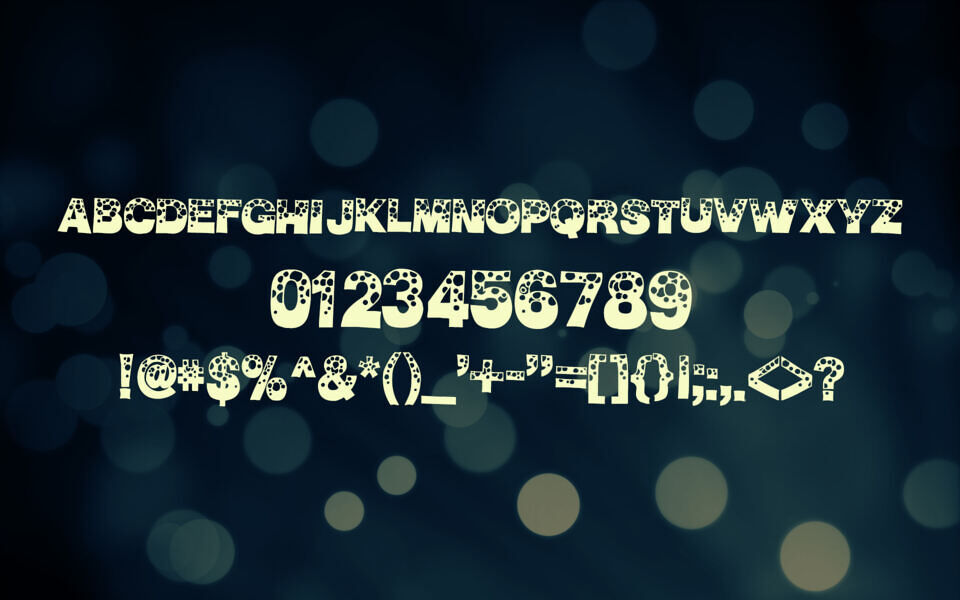
BubbleMan Font is a playful, decorative typeface by Brain Eaters Font Co. Inspired by the quirky charm of the classic “Robot Monster” film, it features bubbly, rounded letters that evoke a whimsical, retro vibe.
Perfect for posters, logos, or fun creative projects, this free-for-personal-use font adds a lighthearted touch to designs. BubbleMan offers a unique, eye-catching style for those seeking a blend of nostalgia and eccentricity.